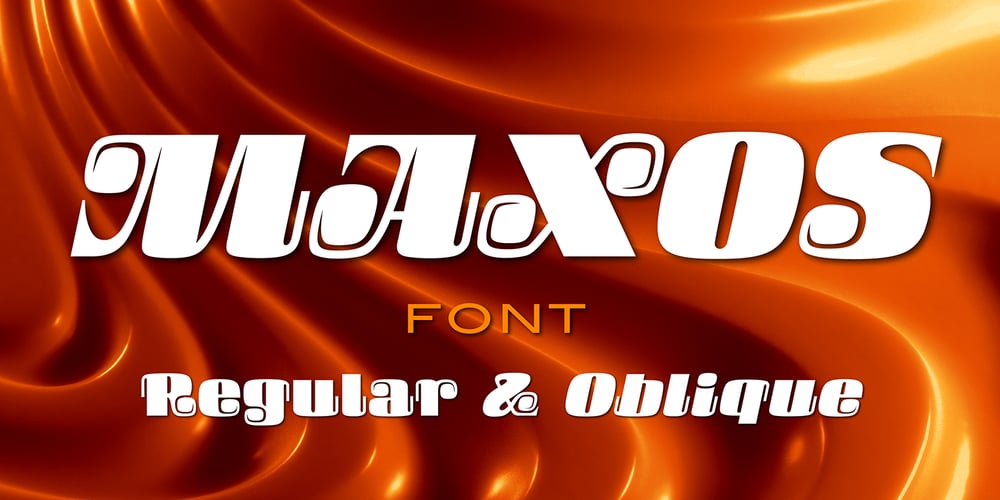
Maxos Font Family was designed by Mott Jordan and published by Mysterylab. Maxos contains 2 styles and family package options. Maxos is a modern hyper-stylized font that is simultaneously sleek & futuristic, yet retro & whimsical. This font package contains two variations: Extra Bold and Extra Bold Oblique. Excellent for posters, album graphics, motorsports, high-tech, etc.